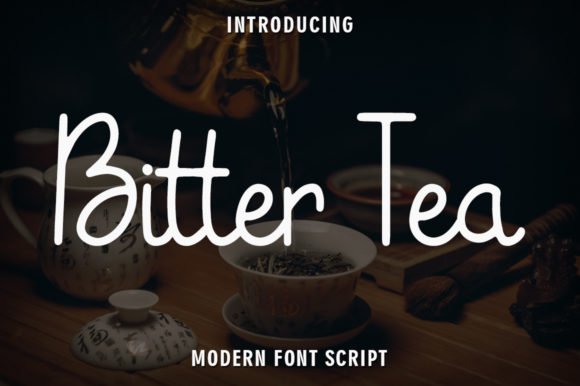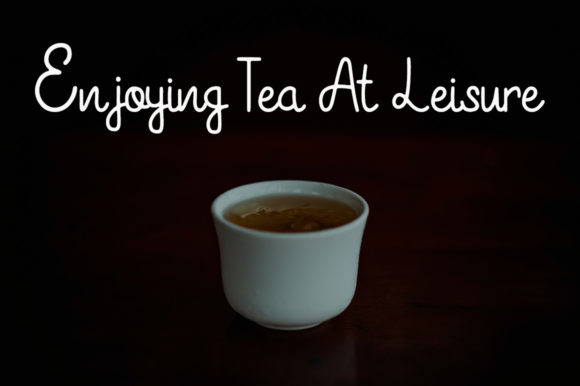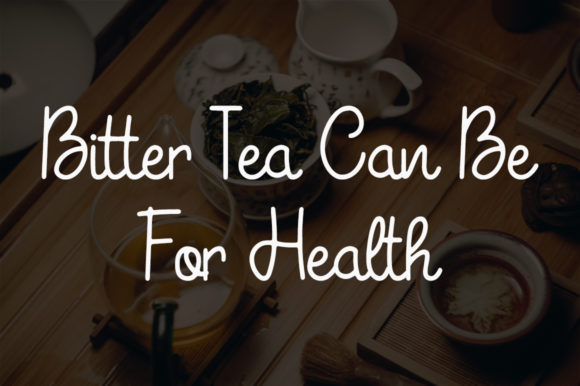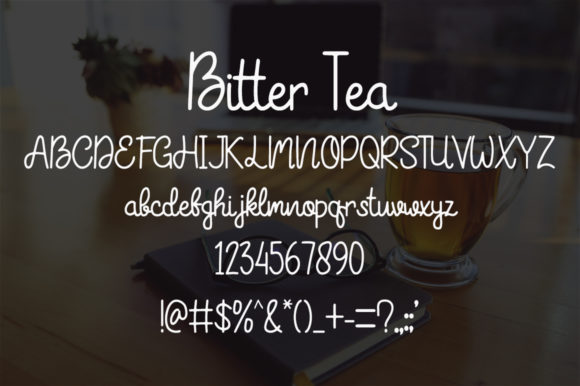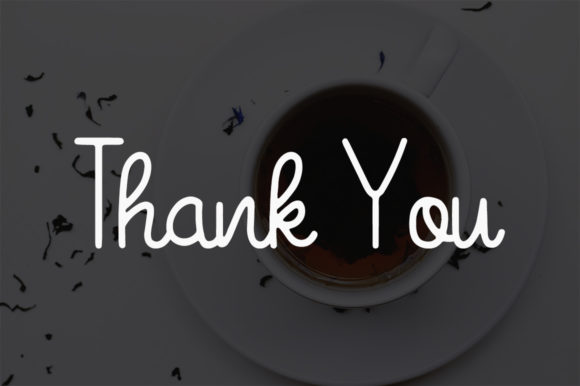
The Perfect Blend: Unleashing the Beauty of Bitter Tea Font
There’s something magical about sipping a warm cup of tea on a chilly morning, surrounded by the soft glow of a sunrise. The aroma fills the air, and your mind begins to wander – perhaps to a project you’ve been putting off, or a design idea that’s been brewing in your head. This is exactly the moment when the right font can make all the difference. Enter the Bitter Tea Font, a delicate and elegant handwritten font that will transport your designs to a world of sophistication and charm.
Whether you’re a seasoned designer or a creative newbie, the Bitter Tea Font is a valuable addition to your toolkit. Its unique, rounded letters make it perfect for a wide range of projects, from elegant invitations to modern logos. With its incredibly versatile style, you’ll find endless ways to use the Bitter Tea Font to create spectacular designs that leave a lasting impression.
Bitter Tea Font Key Features
- Font Family: Bitter Tea Font is a unique, hand-drawn sans-serif font, ideal for creative projects.
- Unique Characteristics: Bitter Tea Font features a distinctive, hand-drawn style with subtle imperfections, giving it a warm and organic feel.
Bitter Tea Font Review
I recently had the chance to work with the Bitter Tea font, and overall, I’m impressed with its unique characteristics. Here are some of the things that stood out to me:
- ✨ **Expressive flair**: Bitter Tea has a distinct personality that’s perfect for projects that need a touch of elegance and sophistication. The font’s curves and lines evoke a sense of refinement, making it ideal for luxury brands, high-end publications, or anything that demands a certain level of sophistication.
- ✨ **Excellent legibility**: Despite its intricate design, Bitter Tea is remarkably easy to read, even at smaller font sizes. This is a testament to the font’s versatility and makes it suitable for a wide range of applications, from body text to headings.
- ✨ **High-quality rendering**: The font’s vectors are well-designed, resulting in smooth lines and crisp edges that hold up well even at high resolutions.
- ⚠️ **Limited font weights**: While the font has a range of styles, it’s missing some key weights, such as a bold or extra-light version. This might limit its use in certain projects where a specific weight is required.
- ⚠️ **Not suitable for all platforms**: I encountered some issues with the font’s rendering on certain devices, particularly those with limited font support. This might require additional setup or font replacement in some cases.
Overall, I’m pleased with the Bitter Tea font, and I think it’s a great addition to any designer’s toolkit. While it has some limitations, its unique flair and excellent legibility make it a compelling choice for the right projects.
Tips for Getting the Most Out of Bitter Tea Font
To get the most out of Bitter Tea Font, use it for designs that require a unique, vintage feel. It pairs well with distressed textures and watercolor elements. Experiment with different font sizes and colors to create visually appealing contrast.
Bitter Tea Font is commonly used for:
- Restaurant menus
- Wedding invitations
- Vintage-inspired designs